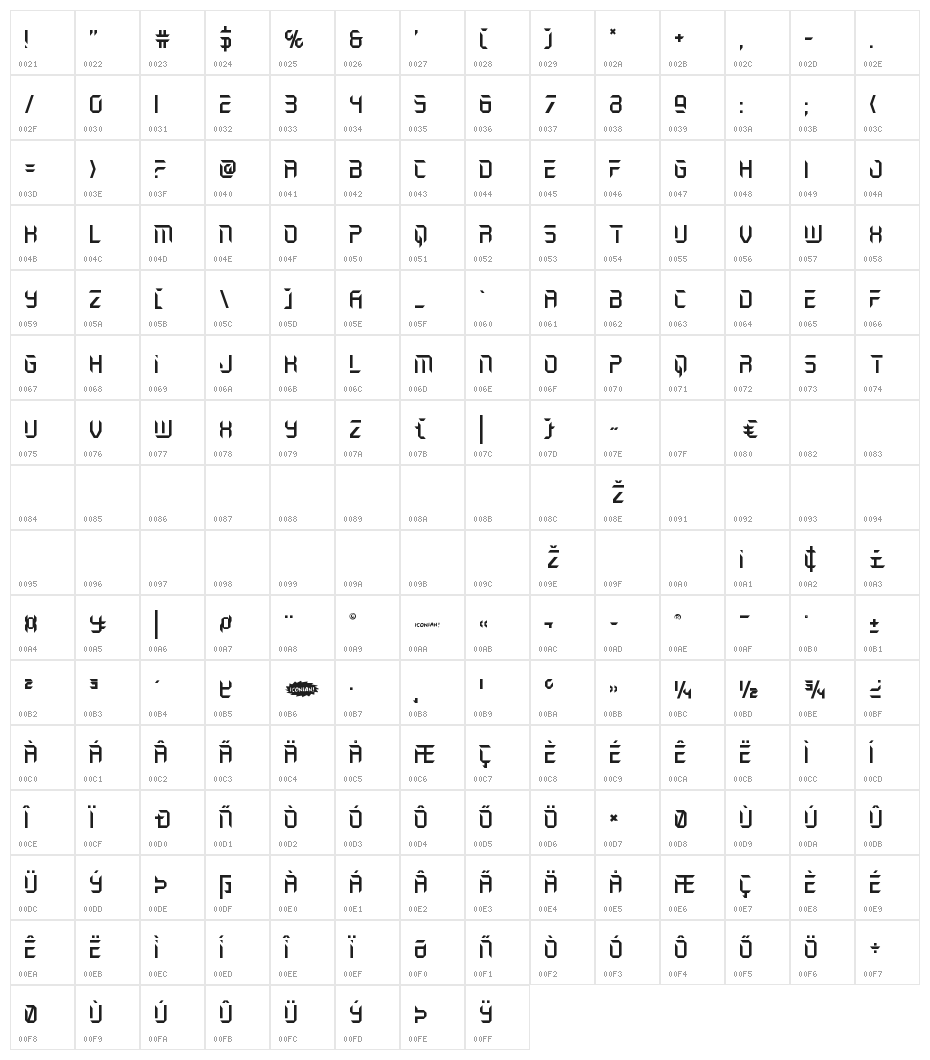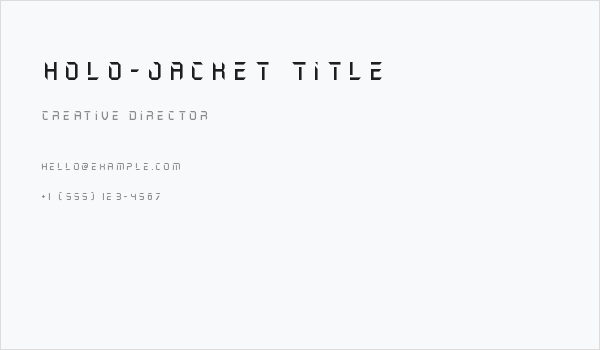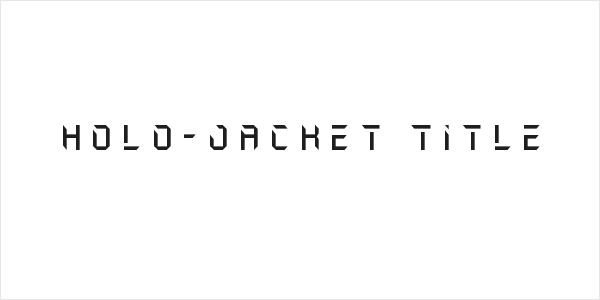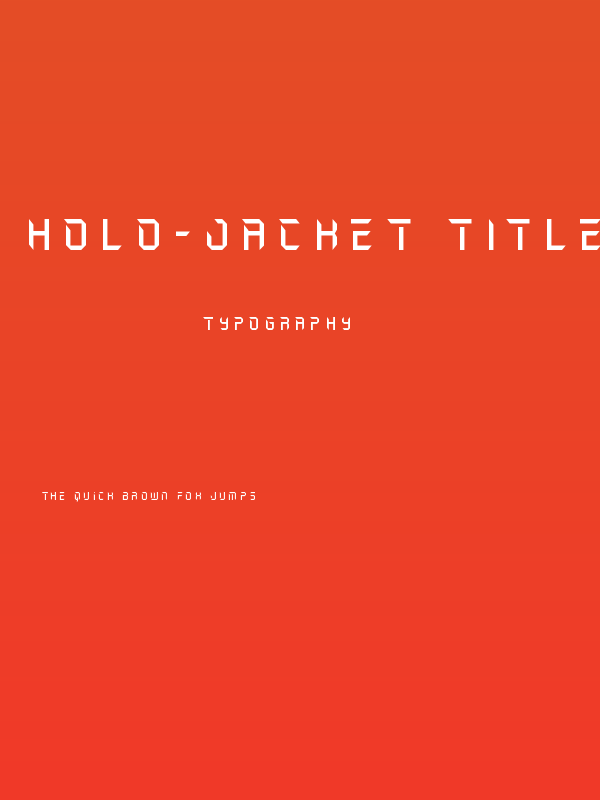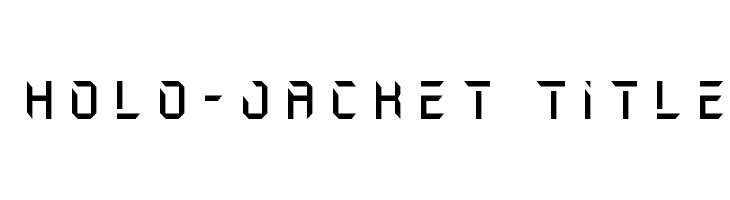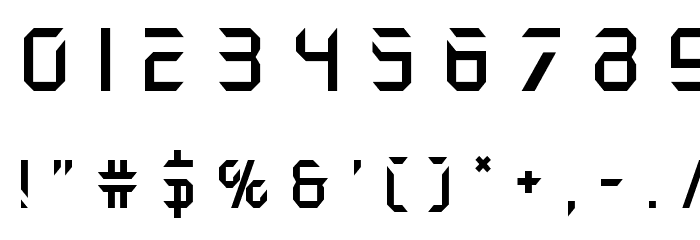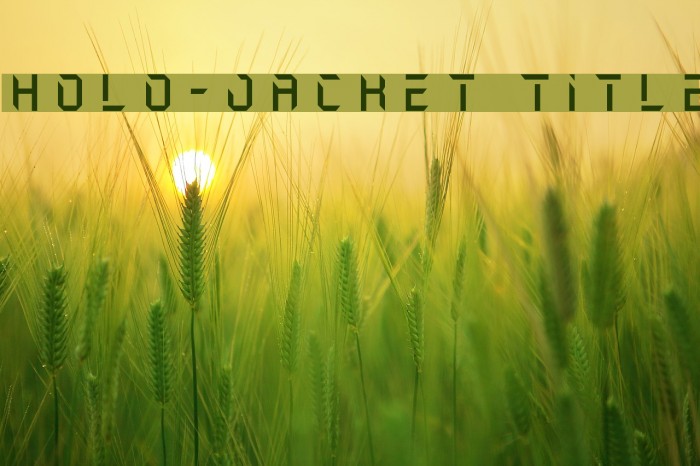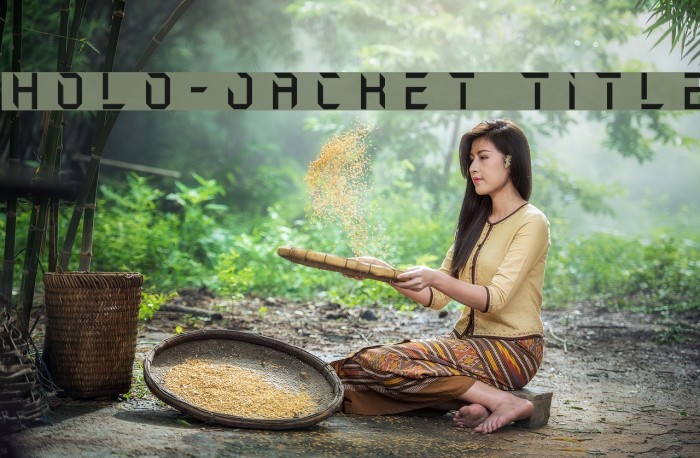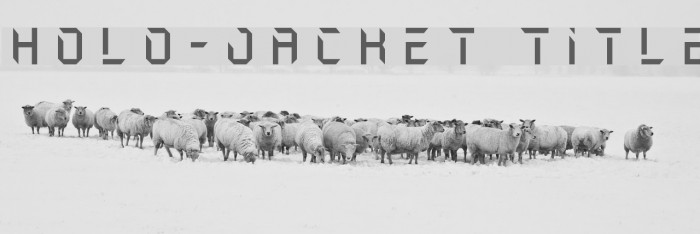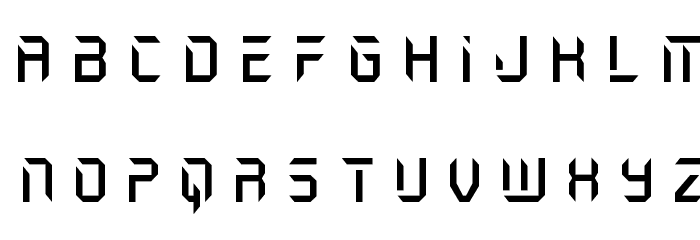
Holo-Jacket Title Font
Holo-Jacket Title Description
This font features a futuristic and angular design, characterized by sharp edges and geometric shapes. The letters and numbers are constructed with a bold, block-like appearance, giving it a strong and impactful presence. The uppercase and lowercase letters maintain a consistent style, with slight variations in size and form. The numerals are distinct and easily recognizable, complementing the overall aesthetic. Special characters are designed to match the angular theme, ensuring uniformity across all glyphs. This font is ideal for projects that require a modern and edgy look.
| Proposed Projects | Ideal for sci-fi themed designs, technology branding, video game titles, and modern posters. |